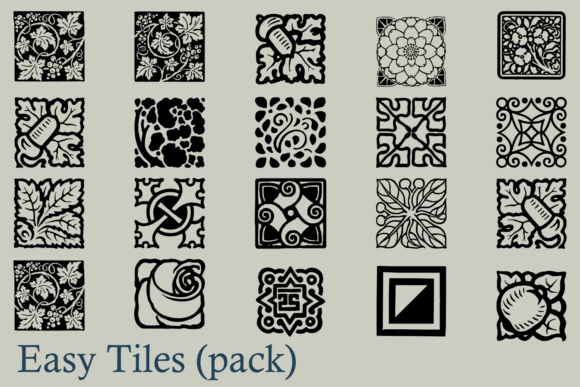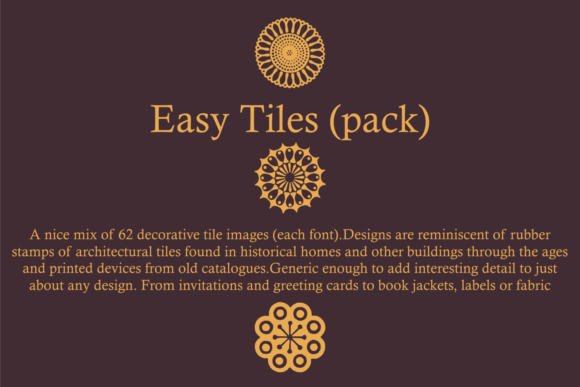
Easy Tiles Font: A Timeless Collection of Decorative Tile Images
Are you a designer or crafter looking for a unique and versatile way to add texture and interest to your projects? Look no further than the Easy Tiles Font, a stunning collection of 62 decorative tile images that evoke the classic charm of rubber stamps and vintage catalogues.
A Blast from the Past
The Easy Tiles Font is a carefully curated selection of decorative tile designs that have been inspired by the architectural tiles found in historical homes and buildings throughout the ages. From the intricate patterns of ancient civilizations to the ornate designs of modern architectural styles, this font has it all. Each image has been meticulously crafted to capture the essence of a bygone era, with a focus on detail and authenticity.
With the Easy Tiles Font, the creative possibilities are endless. Whether you’re designing invitations, greeting cards, book jackets, labels, or fabric, this versatile collection of tile images is sure to add a touch of elegance and sophistication to your projects. The designs are generic enough to complement a wide range of styles and themes, making it easy to incorporate them into your existing design workflow.
Key Features of the Easy Tiles Font
- 62 decorative tile images: Each image has been carefully crafted to provide a unique and interesting design element for your projects.
- Reminiscent of rubber stamps and vintage catalogues: The designs evoke a sense of nostalgia and classic charm, perfect for adding a touch of vintage flair to your projects.
- Architectural tile designs: Inspired by the tiles found in historical homes and buildings, these designs bring a sense of authenticity and history to your projects.
- Generic designs: The tile images are versatile enough to complement a wide range of styles and themes, making it easy to incorporate them into your existing design workflow.
The Easy Tiles Font is a must-have for designers and crafters looking to add a unique and interesting element to their projects. Whether you’re creating digital designs or working with physical materials, this collection of tile images is sure to inspire your creativity and take your projects to the next level.
Ideas for Using the Easy Tiles Font
- Invitations and greeting cards: Add a touch of elegance and sophistication to your paper crafts with these beautiful tile images.
- Book jackets and labels: Use the Easy Tiles Font to add a decorative element to your book designs, labels, and other paper products.
- Fabrics and textiles: Incorporate these tile images into your fabric designs, scarves, and other textile projects for a unique and eye-catching effect.
- Digital designs: Use the Easy Tiles Font to add texture and interest to your digital designs, including social media graphics, blog posts, and website elements.
The Easy Tiles Font is a timeless collection of decorative tile images that are sure to inspire your creativity and add a touch of classic charm to your projects. With its versatile designs and endless creative possibilities, this font is a must-have for designers and crafters looking to take their projects to the next level. So why wait? Download the Easy Tiles Font today and start creating something truly special!